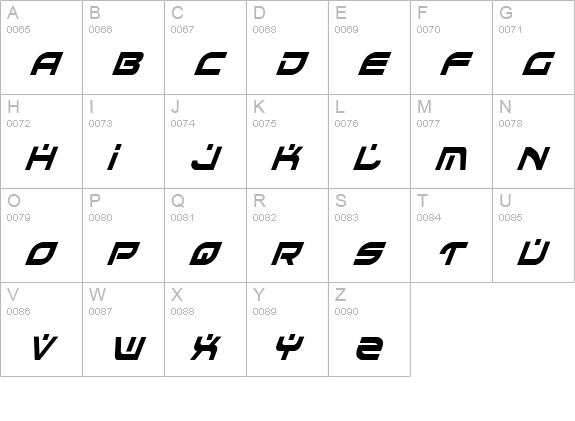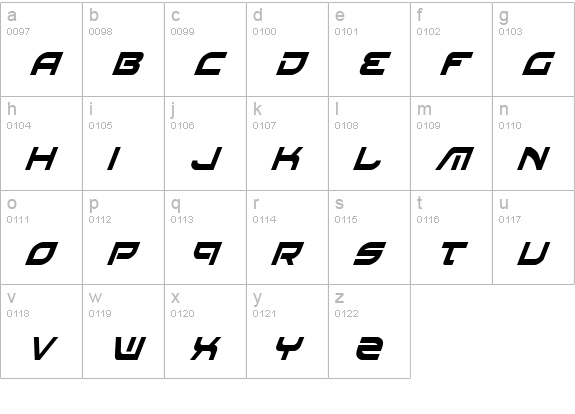
Battlefield Condensed Italic is a distinctive, condensed-width, italic variant in the Battlefield typeface family \xE2\x80\x94 well suited to design and typography projects.
Introducing Battlefield Condensed Italic font - a sleek and modern typeface that exudes a sense of sophistication and elegance. This unique font is perfect for adding a touch of style to any design project, whether it be for print or digital use. The condensed italic style of Battlefield gives it a sleek and streamlined look that is both eye-catching and easy to read. What makes Battlefield Condensed Italic font even better is that it is completely free to download at FontsMarket.com. That's right, you can get your hands on this stunning font without spending a dime. So why wait? Enhance your designs with the bold and stylish appeal of Battlefield Condensed Italic font today!